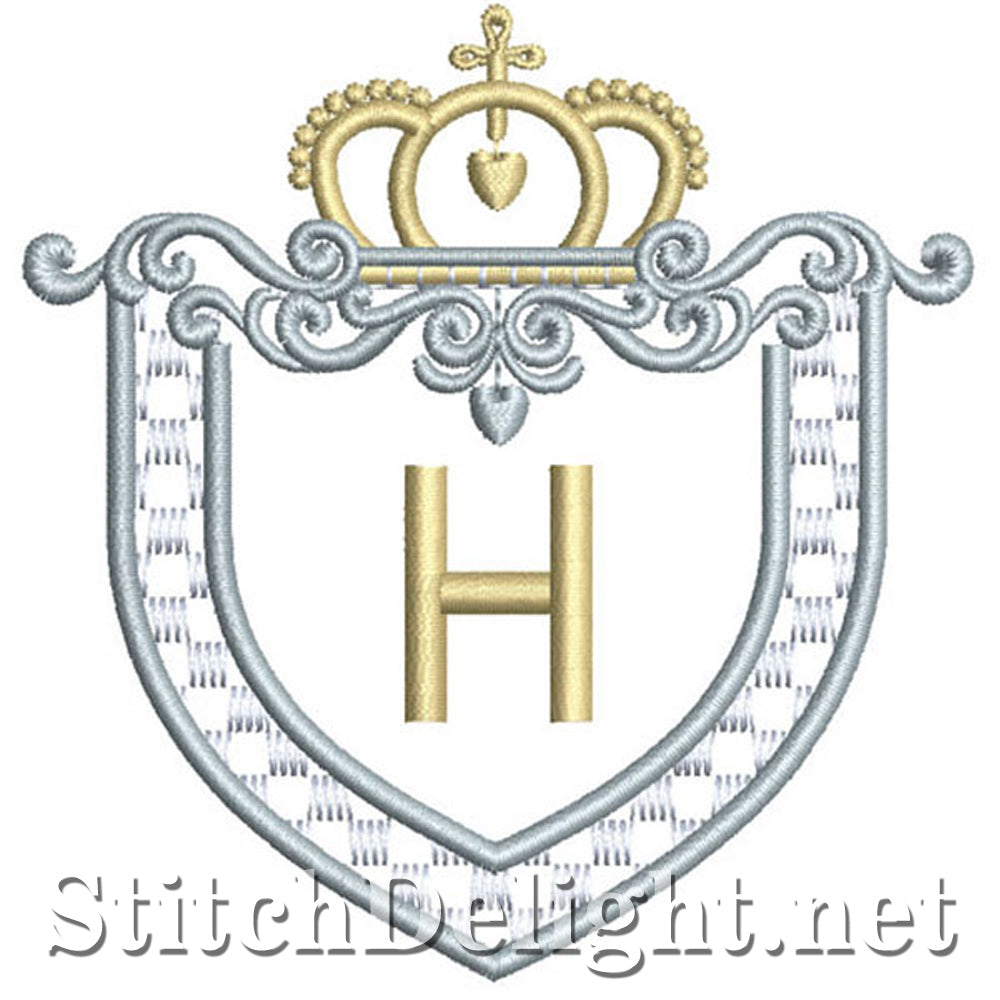
SDS1178 Royal Frame Font H
Beautiful font fit for royalty, this font is stunning on linen - it includes a blank frame so you can add your own design or lettering to the center - Size of frame is 3.71x33.89", stitch count approximately 7900 stitches - The letters I used the new stitch fill type called Raised Satin, which mimics the foam embroidery, so its raised more from the fabric than other stitches, no foam necessary